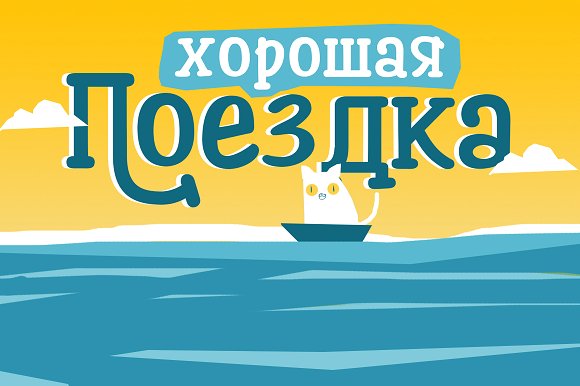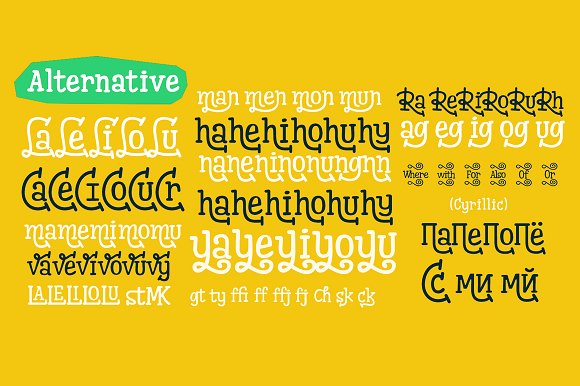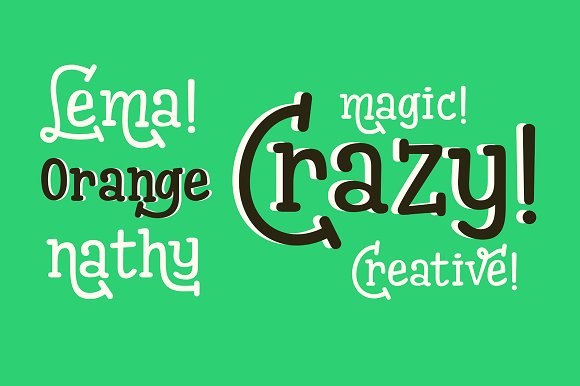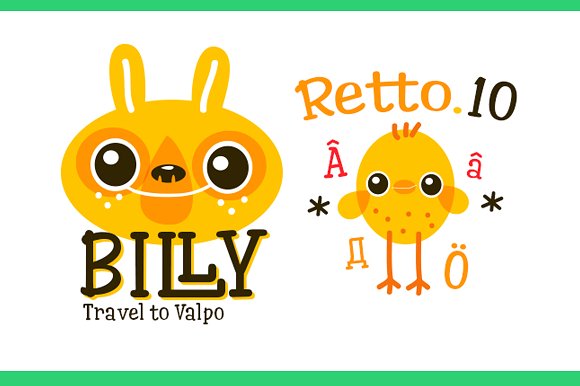
Cucho Font: A Playful and Entertaining Font Family for Designers and Crafters
In the world of typography, fonts play a crucial role in conveying the tone and personality of a brand or design. With thousands of fonts available, it can be overwhelming to find the perfect one that suits your creative project. However, if you’re looking for a font that exudes playfulness and entertainment, look no further than Cucho Font. In this article, we’ll dive into the world of Cucho Font, exploring its unique features, characteristics, and uses, making it a must-have for designers and crafters alike.
What is Cucho Font?
Cucho is a playful, entertaining font family designed to add a touch of whimsy and fun to any design project. With its bold and curly lines, Cucho Font is perfect for creating eye-catching headlines, titles, and slogans that demand attention. The font’s unique design makes it an excellent choice for a wide range of applications, from branding and advertising to packaging and digital media.
Key Features of Cucho Font
So, what makes Cucho Font stand out from the rest? Here are some of its key features:
- Playful and Curly Lines: Cucho Font boasts playful and curly lines that give it a unique and distinctive look. The font’s curly lines add a touch of elegance and sophistication, making it perfect for designs that require a bit of flair.
- Bold and Eye-Catching: Cucho Font is designed to make a statement. Its bold lines and curly edges make it an excellent choice for headlines, titles, and slogans that need to grab attention.
- Versatile: Cucho Font is a versatile font family that can be used for a wide range of applications, from digital media to print materials.
- Easy to Read: Despite its playful design, Cucho Font is easy to read, making it perfect for body text and paragraphs.
Uses of Cucho Font
Cucho Font is an excellent choice for a wide range of design projects, including:
- Branding and Advertising: Use Cucho Font to create eye-catching logos, slogans, and taglines that showcase your brand’s personality.
- Packaging Design: Add a touch of whimsy and fun to your packaging design with Cucho Font.
- Digital Media: Use Cucho Font to create engaging and interactive digital content, such as social media graphics, blog posts, and website headers.
- Crafting and DIY Projects: Cucho Font is perfect for crafters and DIY enthusiasts who want to add a personal touch to their projects, such as handmade cards, scrapbooking, and craft tutorials.
Tips for Using Cucho Font
Here are some tips for using Cucho Font effectively in your design projects:
- Use it Sparingly: While Cucho Font is playful and fun, it can be overwhelming if used excessively. Use it sparingly to create emphasis and add visual interest.
- Pair it with Other Fonts: Cucho Font pairs well with other fonts, such as sans-serif fonts, to create a visually appealing contrast.
- Experiment with Colors: Cucho Font looks great in a variety of colors, from bold and bright to pastel and soft.
| Font Name | Cucho Font |
| Author | Rodrigo Typo |
In conclusion, Cucho Font is a playful, entertaining font family that’s perfect for designers and crafters who want to add a touch of whimsy and fun to their design projects. With its unique features, versatility, and ease of use, Cucho Font is an excellent choice for a wide range of applications. Whether you’re creating a brand identity, packaging design, or digital content, Cucho Font is sure to make your design stand out. So why not give it a try and see the difference it can make in your next design project?